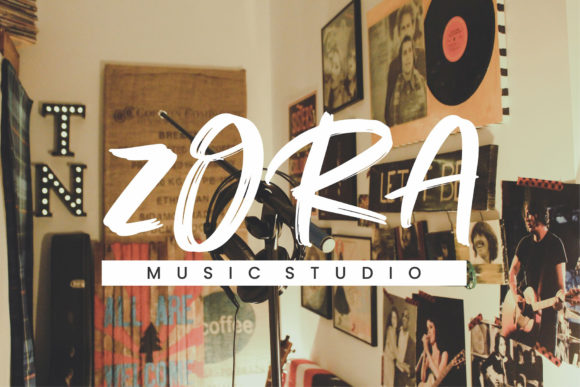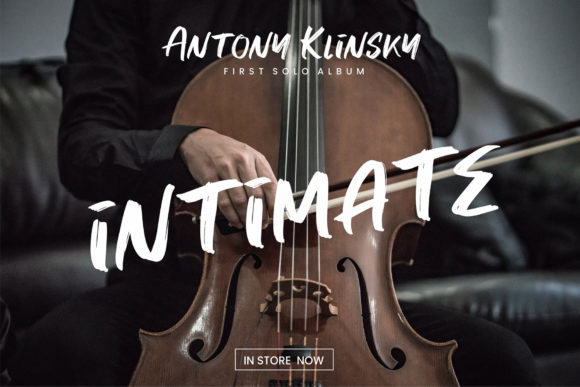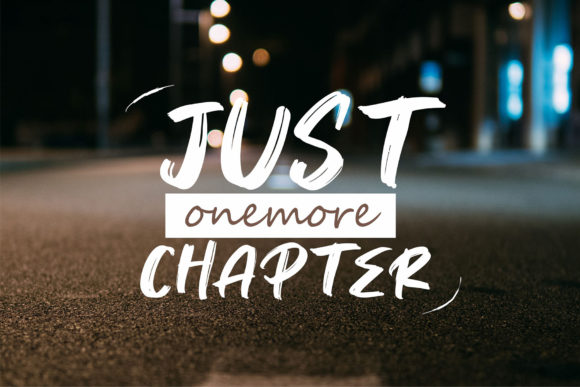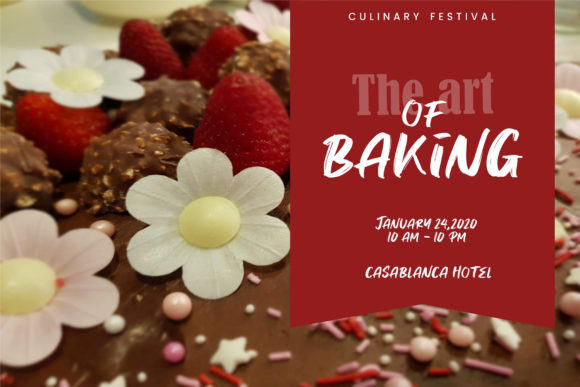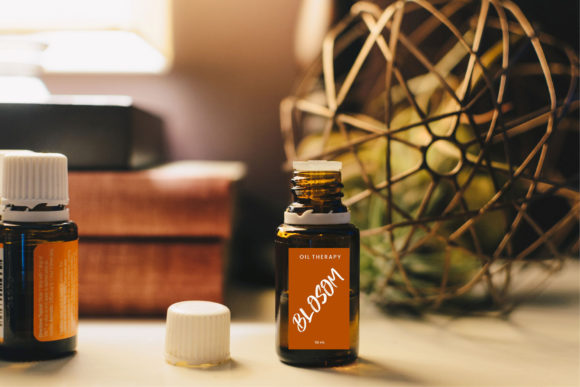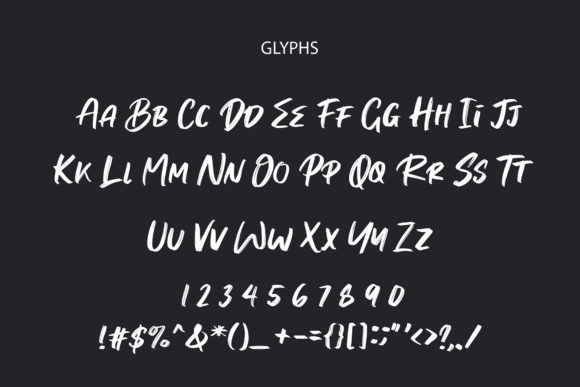
Bathin Font: The Ultimate Brush Style Display Font for Creative Projects
Are you tired of using the same old fonts for your creative projects? Look no further! Introducing Bathin Font, a stunning display font that boasts an awesome brush style that’s sure to catch your attention. With its unique and eye-catching design, Bathin Font is perfect for a wide range of projects, from branding and logos to social media posts and product packaging.
What Makes Bathin Font Special?
Bathin Font is a carefully crafted display font that features a beautiful brush style, giving it a distinctive and artistic look. The font’s unique design makes it stand out from other fonts, making it perfect for projects that require a creative and attention-grabbing touch. Whether you’re working on a logo, brochure, or social media post, Bathin Font is sure to make your project stand out.
Uses of Bathin Font
Bathin Font is an incredibly versatile font that can be used for a wide range of creative projects, including:
- Branding projects: Create a lasting impression with Bathin Font, perfect for logos, business cards, and letterheads.
- Logo design: Make your logo stand out with Bathin Font’s unique brush style.
- T-shirt designs: Add a creative touch to your t-shirt designs with Bathin Font.
- Social media posts: Make your social media posts stand out with Bathin Font’s eye-catching design.
- Advertisements: Grab attention with Bathin Font, perfect for ads, flyers, and brochures.
- Product packaging: Add a touch of creativity to your product packaging with Bathin Font.
- Product designs: Make your product designs stand out with Bathin Font’s unique brush style.
- Labels and watermarks: Add a professional touch to your labels and watermarks with Bathin Font.
- Invitations and stationery: Make your invitations and stationery stand out with Bathin Font’s elegant design.
Why Choose Bathin Font?
There are many reasons why Bathin Font is the perfect choice for your creative projects:
- Unique design: Bathin Font’s brush style design makes it stand out from other fonts.
- Versatility: Bathin Font can be used for a wide range of creative projects.
- High-quality: Bathin Font is a high-quality font that is perfect for professional projects.
Tips for Using Bathin Font
Here are some tips for using Bathin Font effectively:
- Use it sparingly: Bathin Font is a bold font, so use it sparingly to avoid overwhelming your design.
- Pair it with other fonts: Pair Bathin Font with other fonts to create a unique and interesting design.